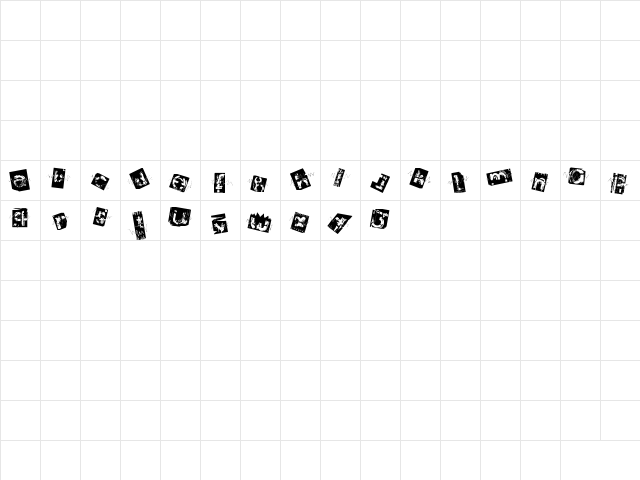
archierotick Regular
Design Context for archierotick
archierotick is a composed and adaptable typeface that performs quietly and consistently across a wide range of design contexts.